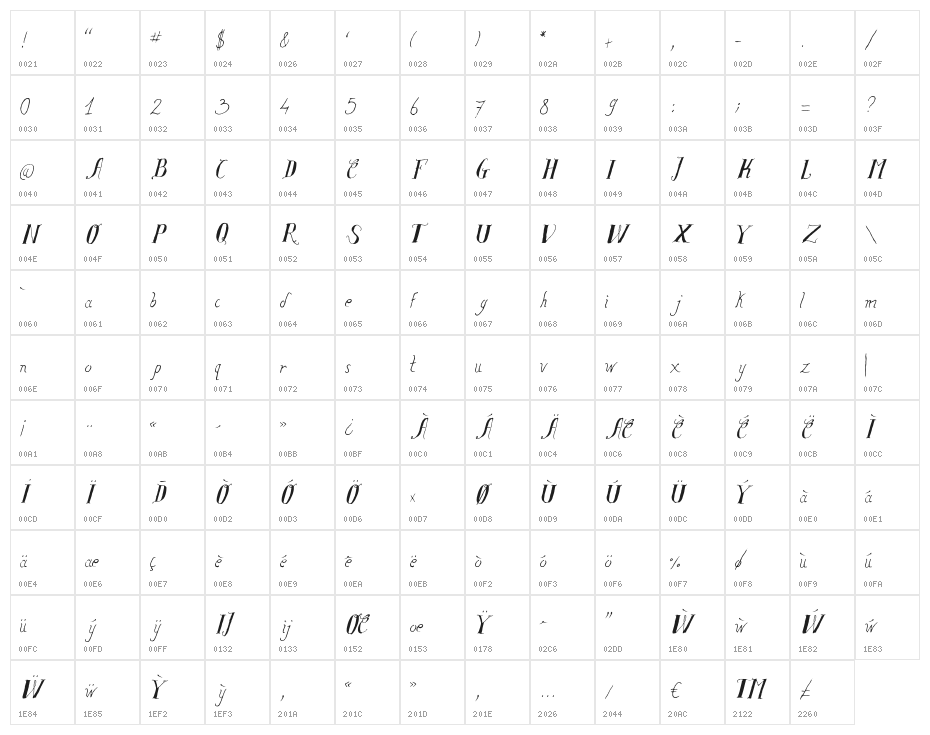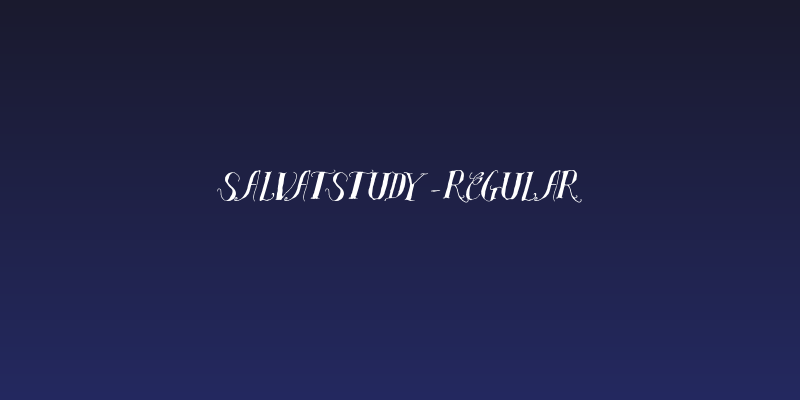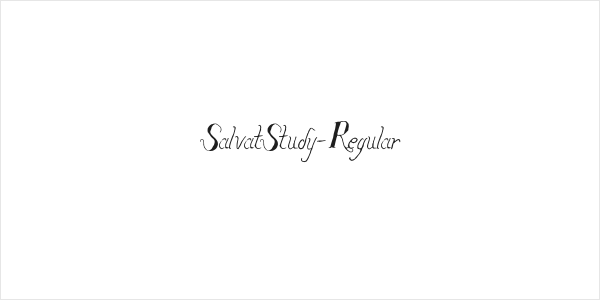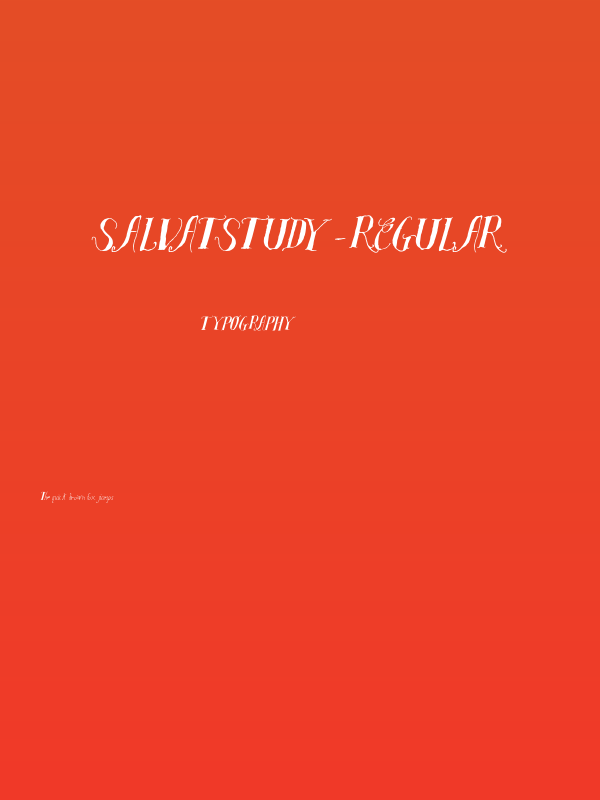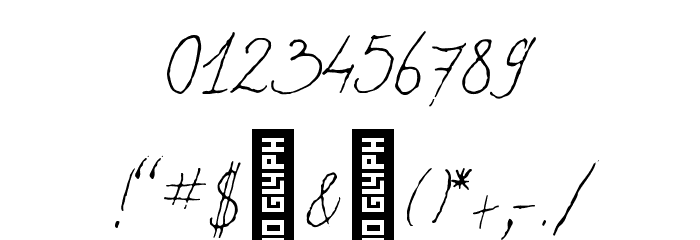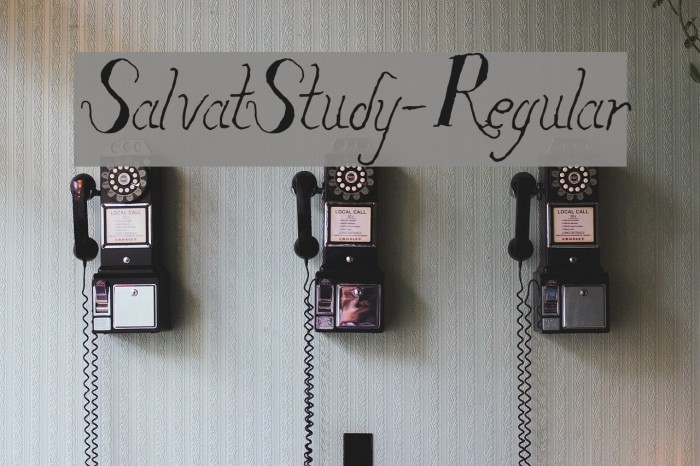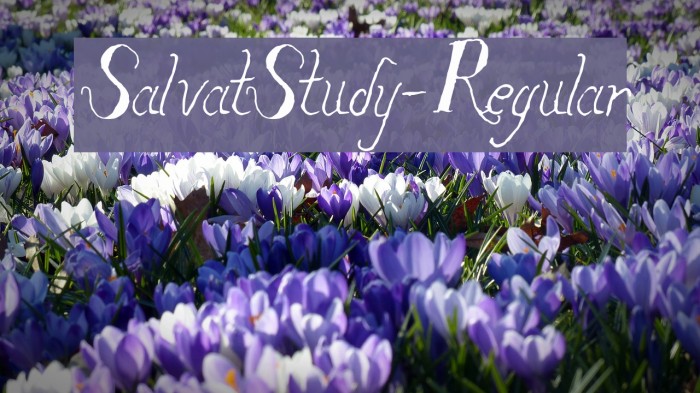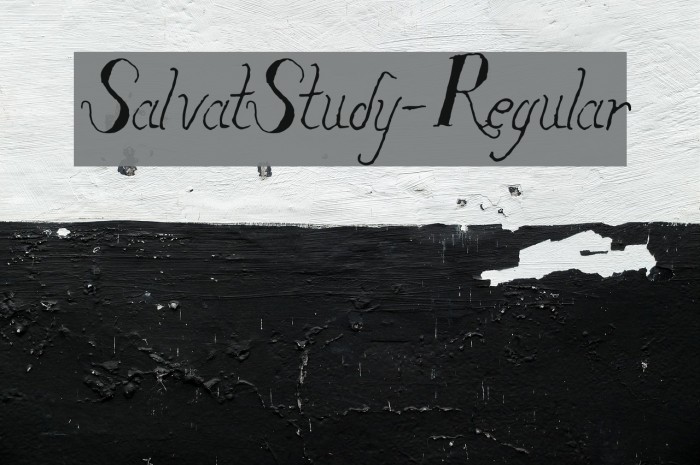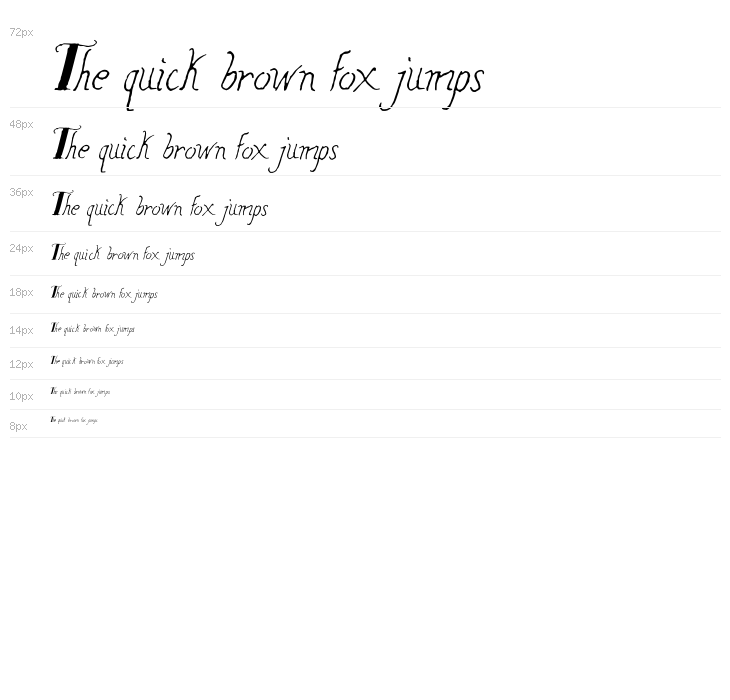
SalvatStudy-Regular Font
This font features an elegant and flowing script style with a calligraphic influence. The uppercase letters are ornate, with flourishes and varying stroke widths that give a sense of movement and grace. The lowercase letters maintain a consistent style, with a slightly more restrained design that complements the uppercase. The numerals are distinct and maintain the decorative style of the alphabet. Special characters are included, each designed to match the overall aesthetic. The font's unique character makes it suitable for projects that require a touch of sophistication and artistic flair.
Fonts by Steeven Salvat
| Proposed Projects | Ideal for wedding invitations, elegant branding, artistic posters, and decorative headings. |